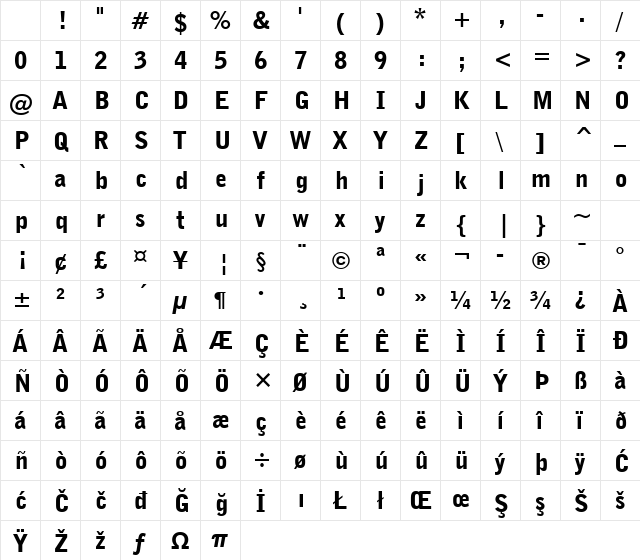
Complete BellGothic Blk BT Black glyph index. Displaying only characters natively supported by BellGothic Blk BT Black font.
BellGothic Blk BT takes a clean, functional approach - its unadorned letterforms prioritise legibility and work reliably across screen and print environments.
Font Pairing: Works well alongside a characterful serif or display font that can carry the expressive load while BellGothic Blk BT handles the functional copy.
Pro Tip: Use BellGothic Blk BT for UI labels, navigation, and short-form body copy where clean legibility is the priority.